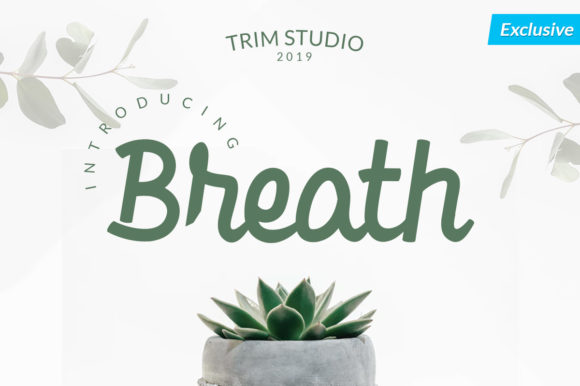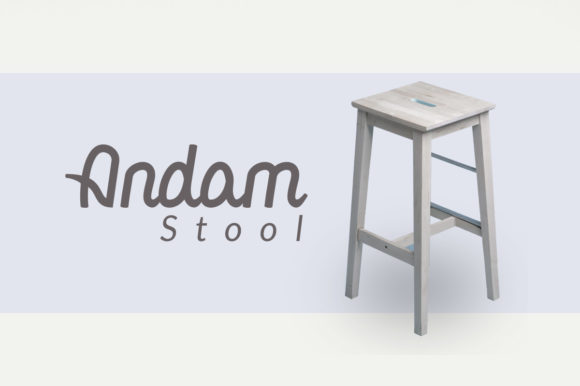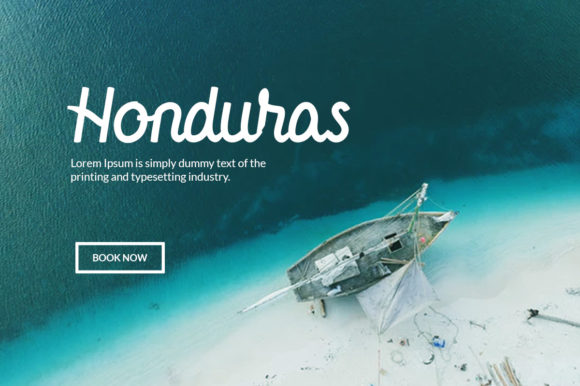
Breath Font
About Breath Font
Breath is an easy and light handwritten font with an effortless feel. Use it to add a casual vibe to any design project.